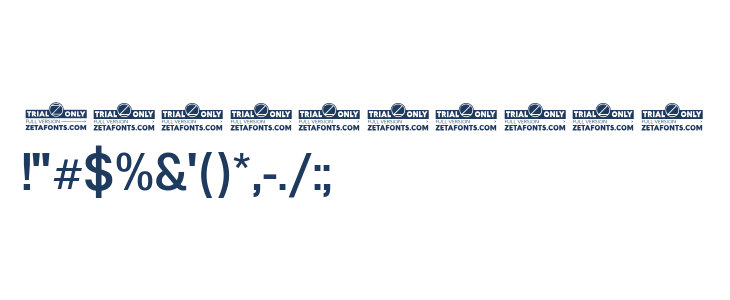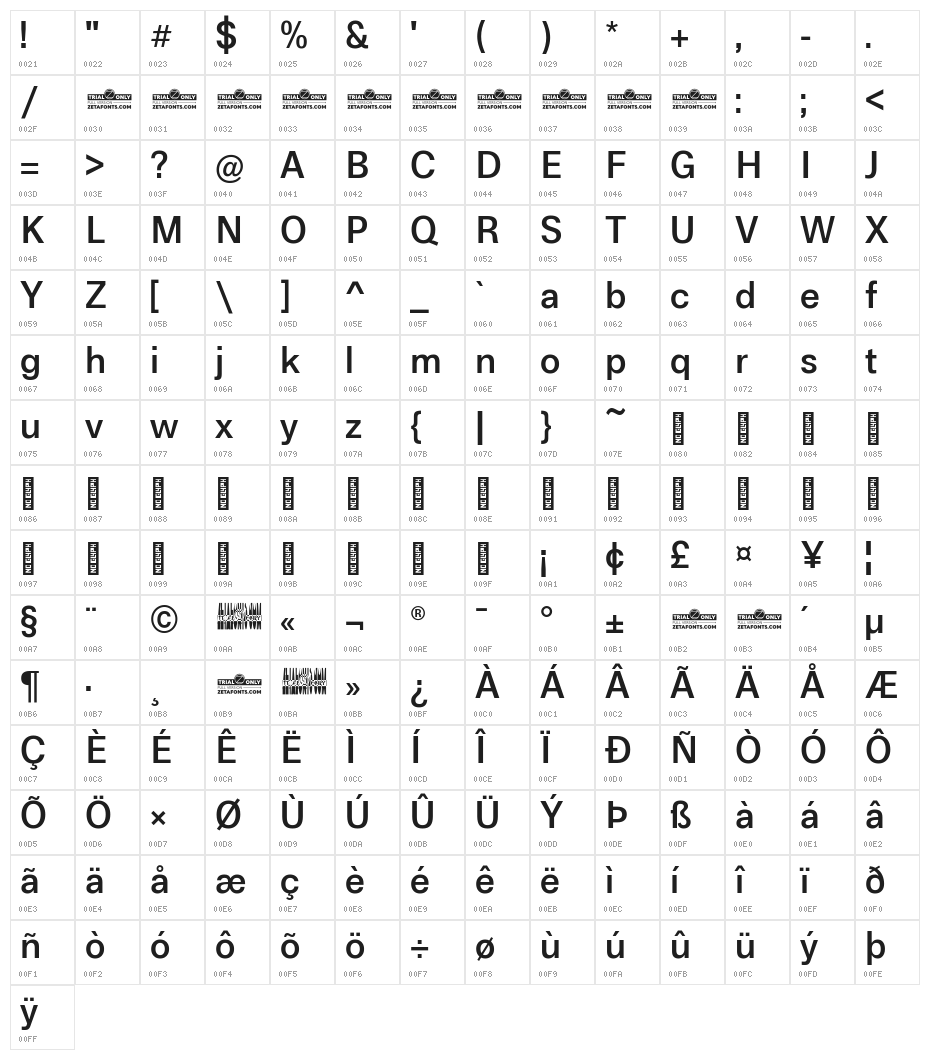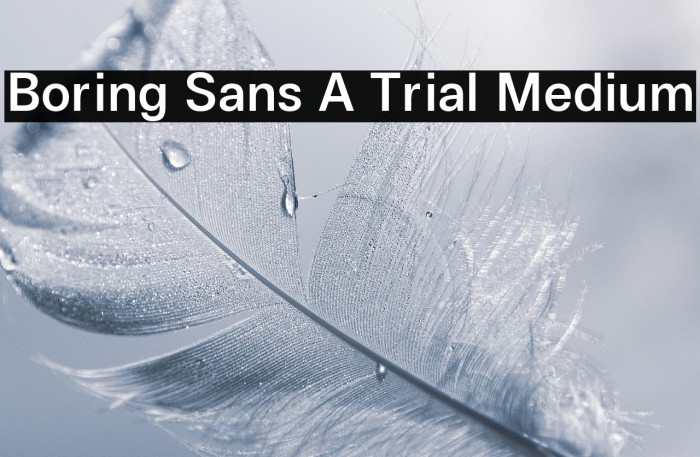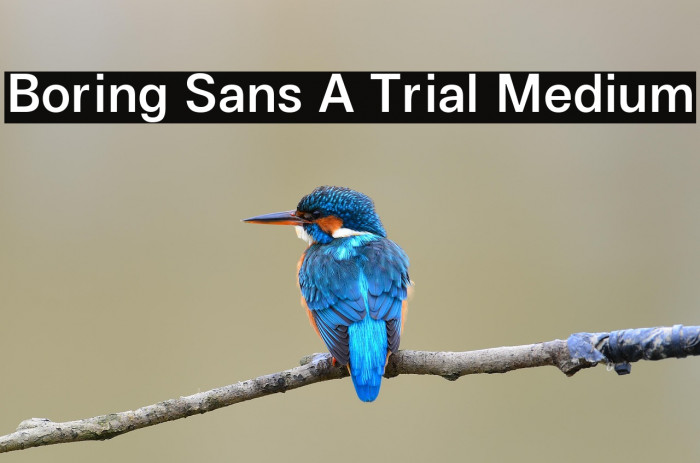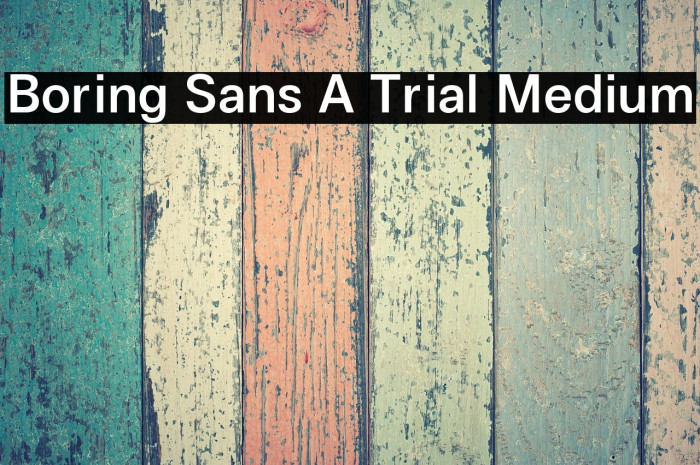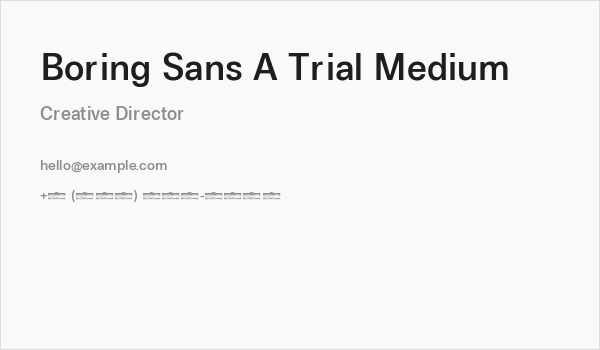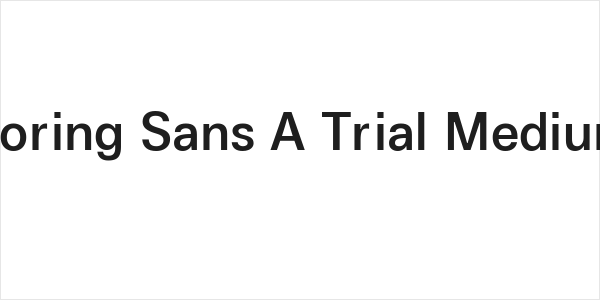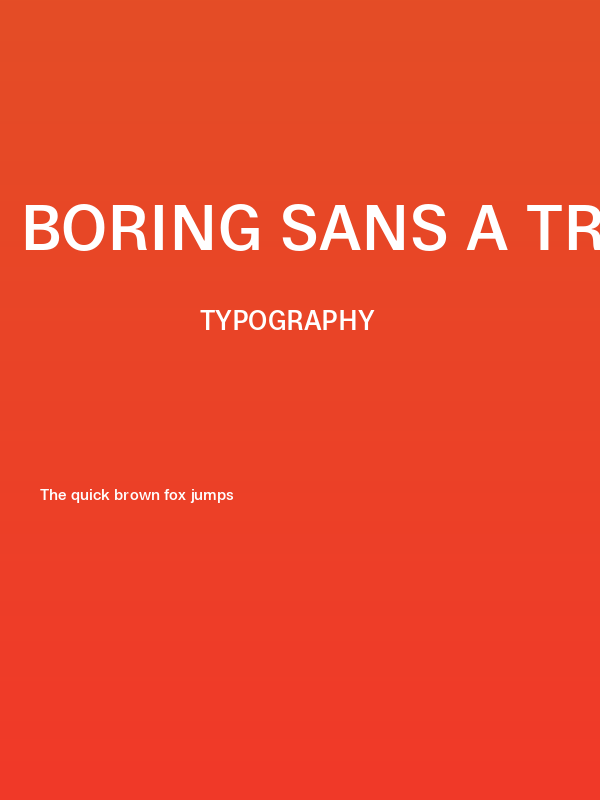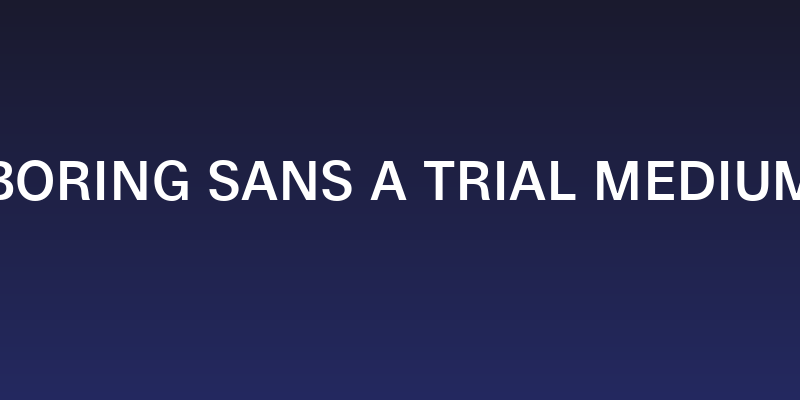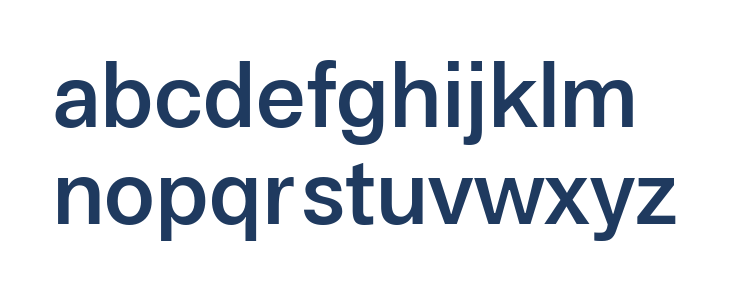
Boring Sans A Trial Medium Font
Boring Sans A Trial Medium Description
This font features a clean and straightforward sans-serif design, characterized by its simplicity and clarity. The letters are evenly spaced, with a consistent stroke width that provides a balanced and harmonious appearance. The uppercase and lowercase letters maintain a uniform height, contributing to its modern and minimalistic style. The numerals and special characters are designed to match the overall aesthetic, ensuring readability and versatility. This font is ideal for projects that require a professional and unobtrusive typeface.
| Proposed Projects | Ideal for corporate branding, web design, user interfaces, and print media where clarity and professionalism are key. |